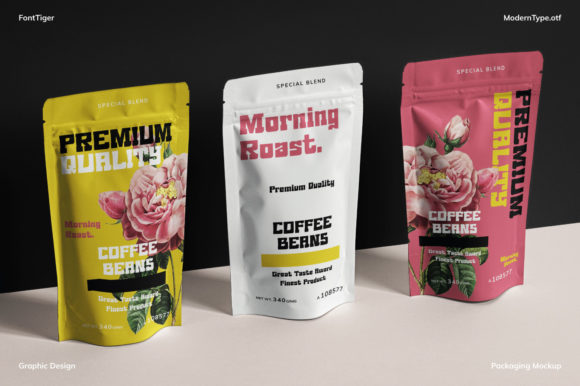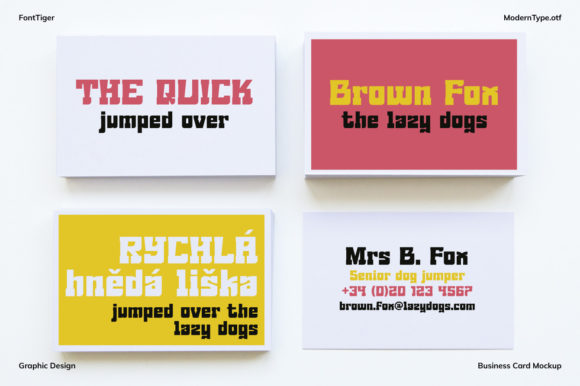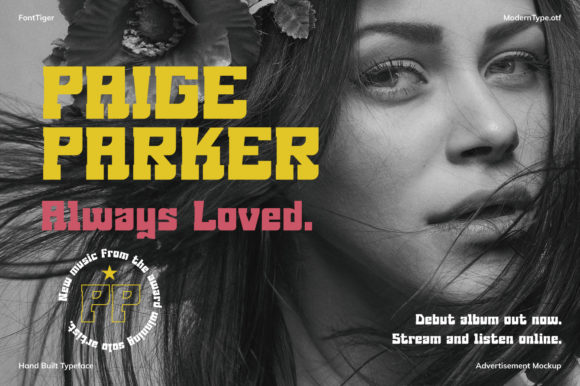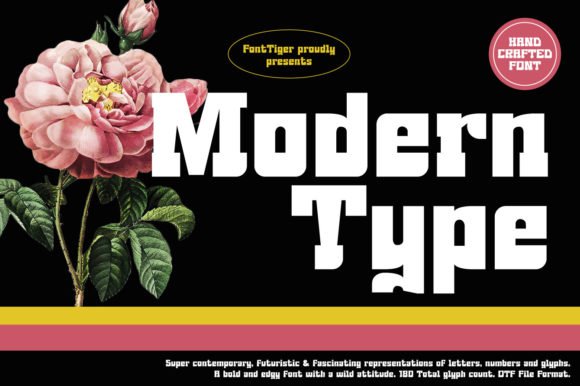
Introduction to Modern Type Font
Modern Type is a bold and edgy font with a wild attitude.
This font lives up to the name with some very contemporary and new representations of letters, numbers and glyphs .
Key Features of Modern Type Font
Why Choose Modern Type Font?
Modern Type Font offers exceptional quality and versatility, making it a valuable addition to your design toolkit. Whether you’re creating for personal projects or commercial use, Modern Type Font delivers professional results.